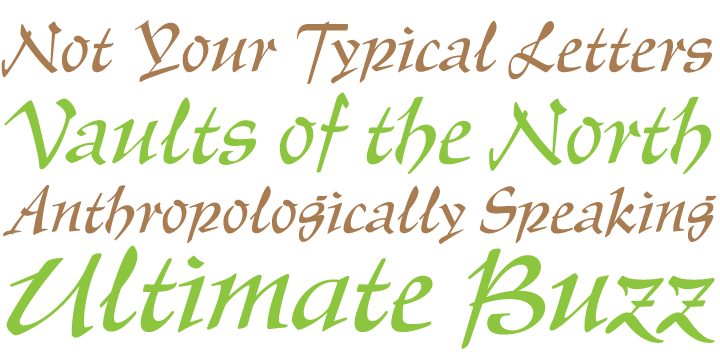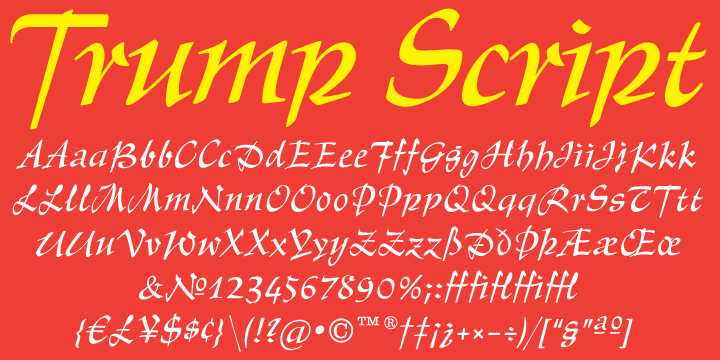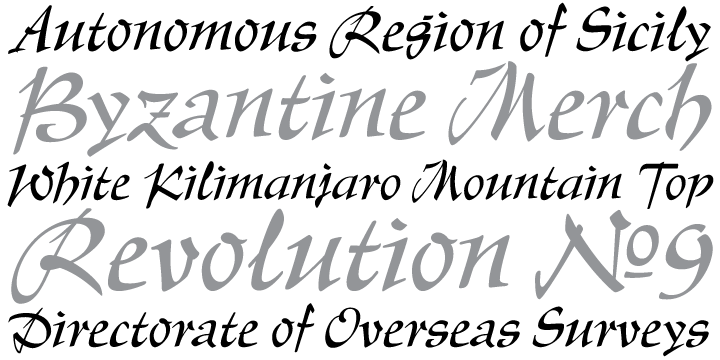
Trump Script Pro is a script font published by Canada Type.
One of the earliest fonts published by Canada Type was Tiger Script, Phil Rutter’s digitization of Jaguar, Georg Trump’s 1967 wild calligraphic brush face. In 2010, when the font was revisited for an update, it was shown that it too light for applications under 24 pt, and too irregular for applications over 64 pt.
So the face was redigitized from scratch. This new digitization brings a more seamless contour and a much steadier stroke, and much better outlines for use at both extremes of scaling. Language support was also greatly expanded, and many alternates and ligatures were added to the redigitized character set. The name was also changed to Trump Script, to better reflect the origins of the design.
Trump Script is a master calligrapher’s hand producing very uncommon jolts and bursts of sharpness. It showcases some of the most suprising letter forms ever drawn, like the very unique treatments of B, K, W, Y and Z. In the lowercase one can see the cattiest g ever made, and some of the wildest shapes in the f, j, p, y and z.